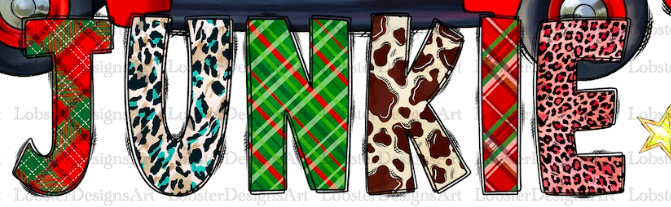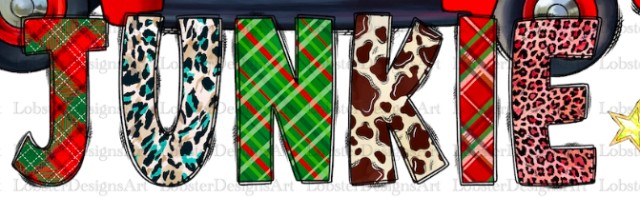
An uppercase condensed sans display bold font used in popular graphics, altered after type by fill and distressing.
J has a cross bar, U is oval, S&U have slight serif, K does not meet base line. Similar to Imperial Quortex, Protest or Bernoru.